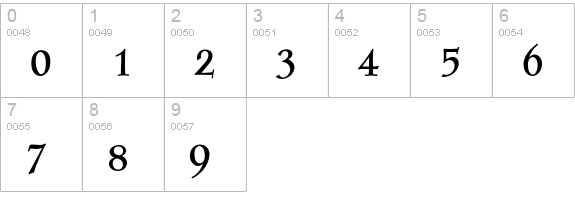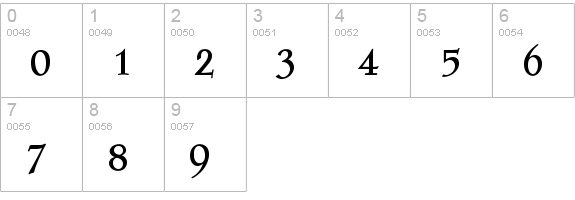
Post-Mediaeval BQ Medium Font Details
Post-Mediaeval BQ Medium is a balanced, medium-weight variant in the Post typeface family \xE2\x80\x94 well suited to sub-headlines, navigation, and balanced editorial work.
The Post-Mediaeval BQ Medium font exudes a classic charm with a modern twist, making it a perfect choice for both traditional and contemporary design projects. This versatile typeface strikes a balance between historical elegance and contemporary functionality, making it ideal for a wide range of applications. With its medium weight and subtly unique characteristics, Post-Mediaeval BQ Medium is sure to make your text stand out while maintaining readability and professional appeal. Whether you're designing a website, creating marketing materials, or crafting editorial content, this font offers a timeless look that will elevate your project. Best of all, Post-Mediaeval BQ Medium is available for free download at FontsMarket.com, allowing you to easily access this high-quality font without any cost. Don't miss out on the opportunity to enhance your designs with this exceptional typeface that seamlessly combines the best of both worlds - classic design elements and modern sensibilities.